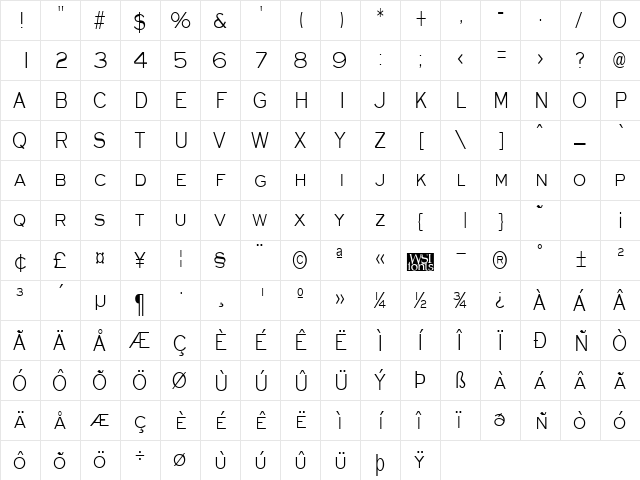
EyechartCondensed Regular
Design Context for EyechartCondensed Typeface
EyechartCondensed is a composed and adaptable typeface that performs quietly and consistently across a wide range of design contexts. The condensed width makes it efficient for tight spaces without sacrificing legibility.